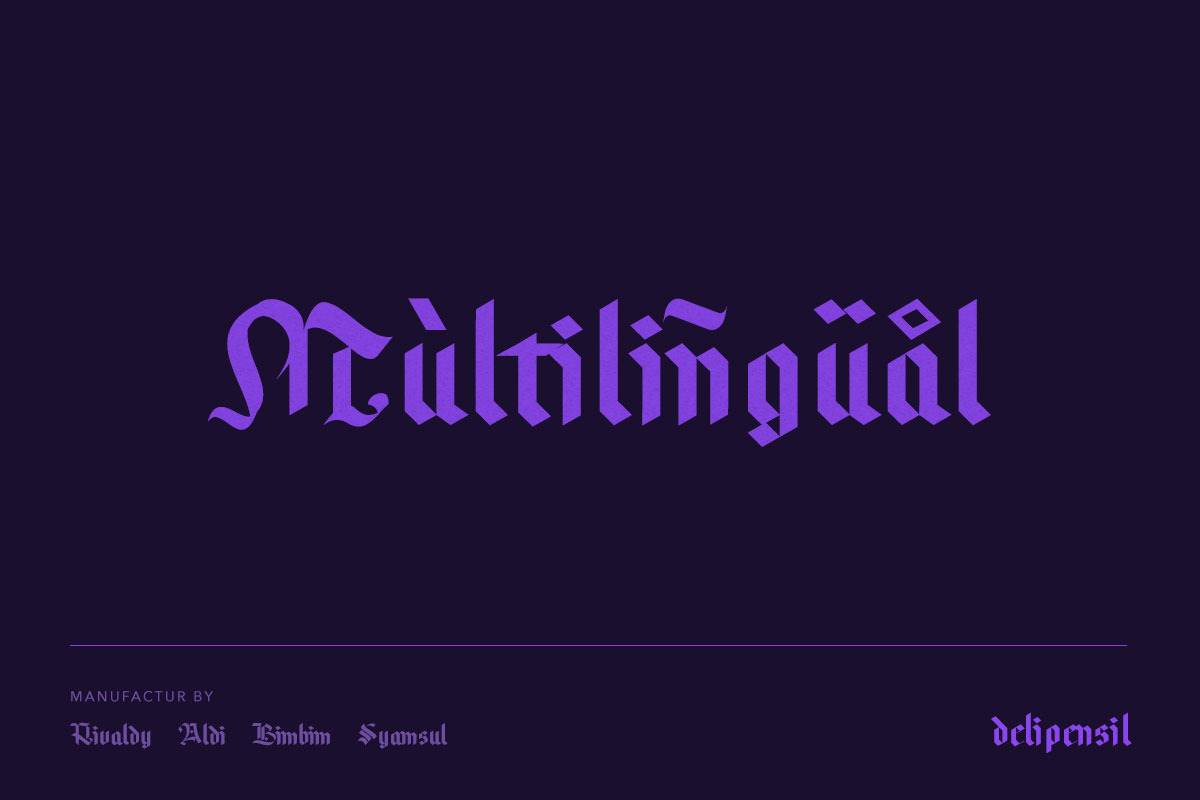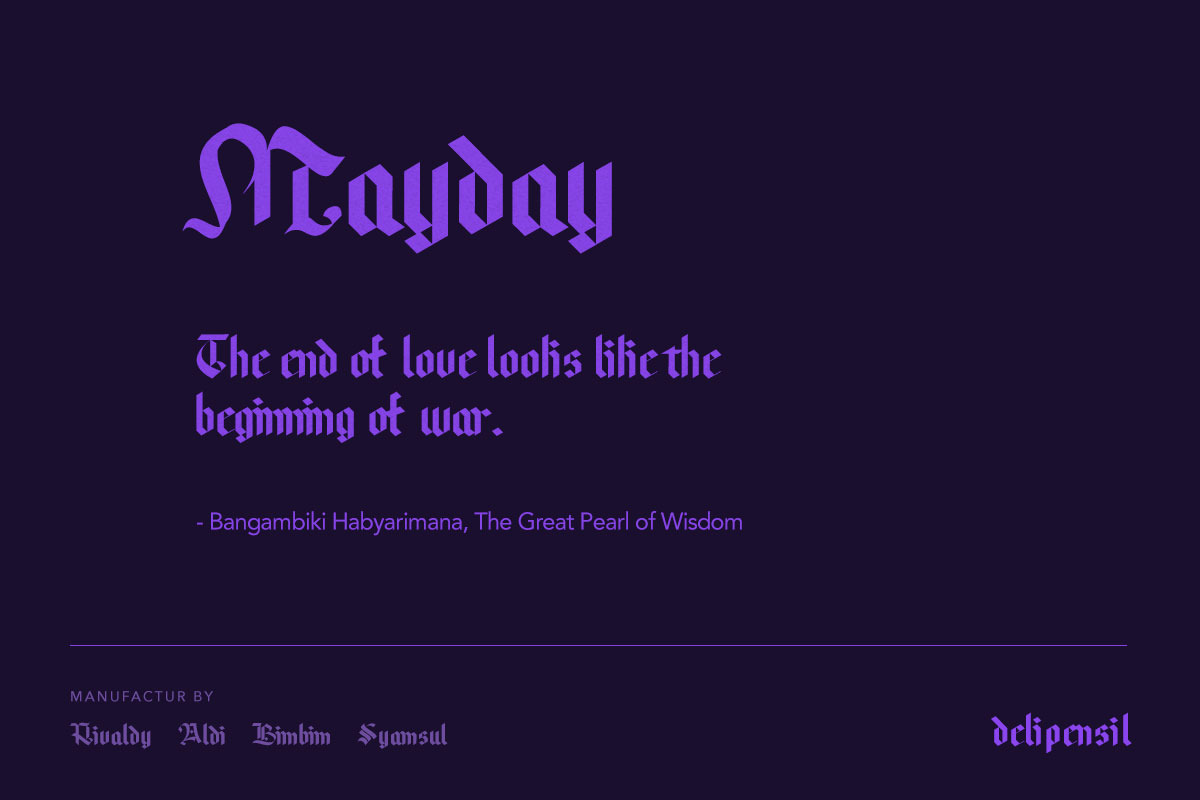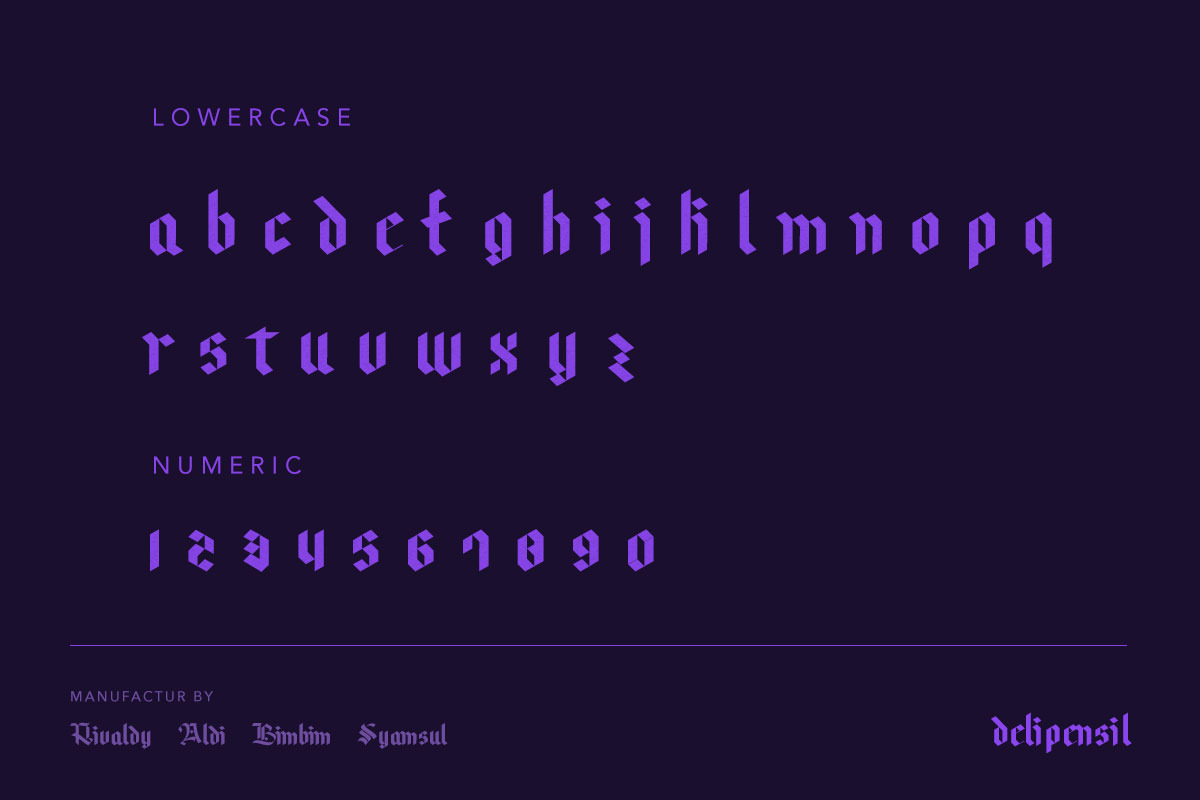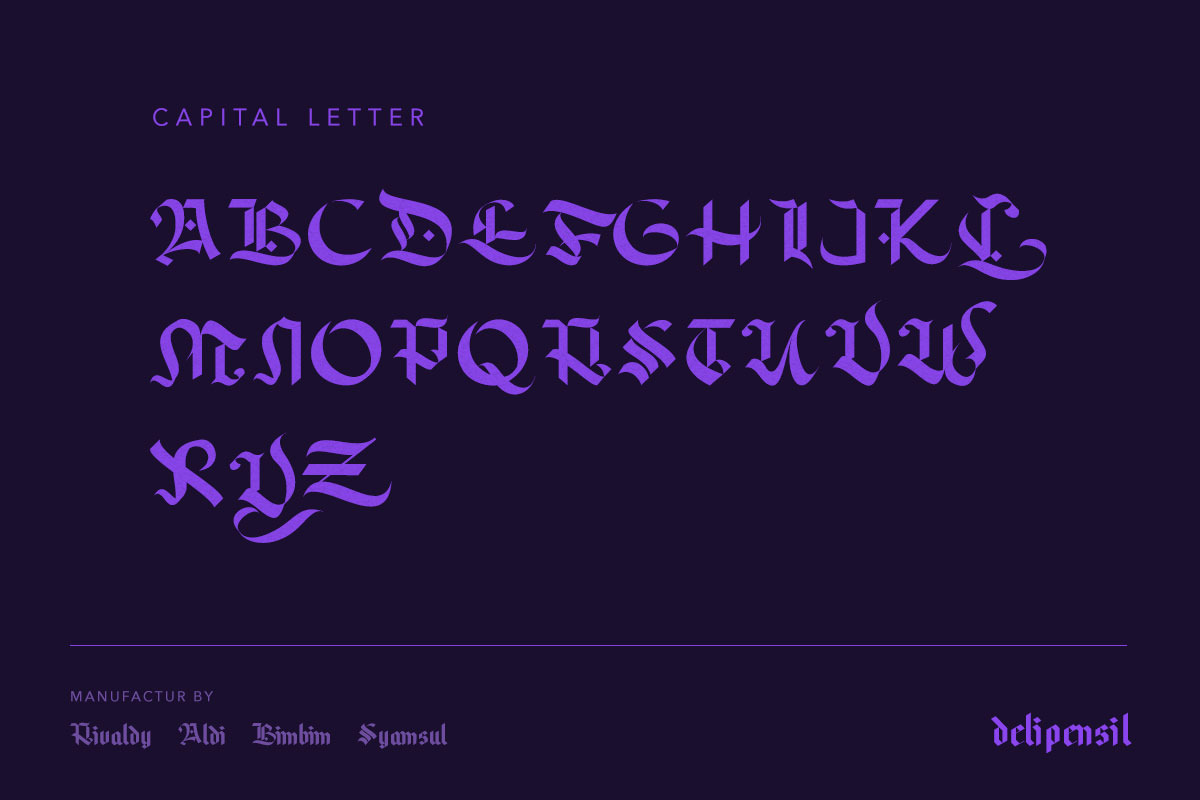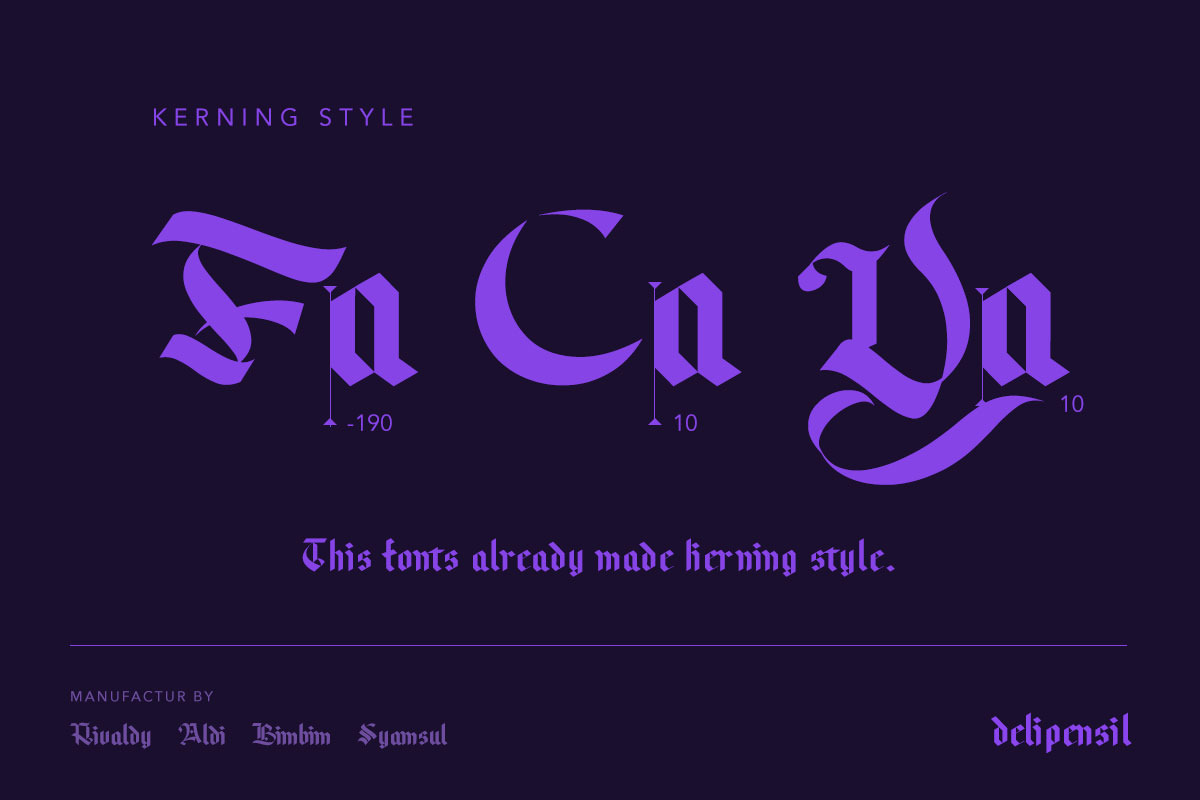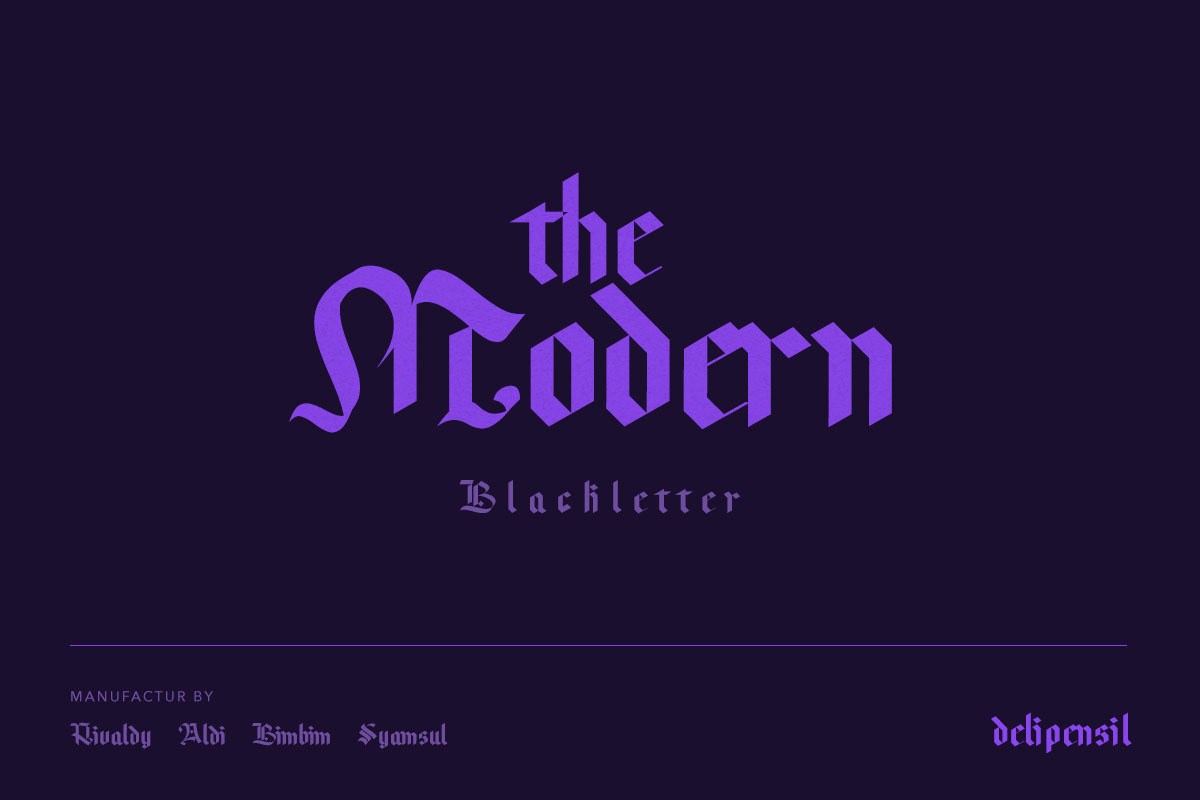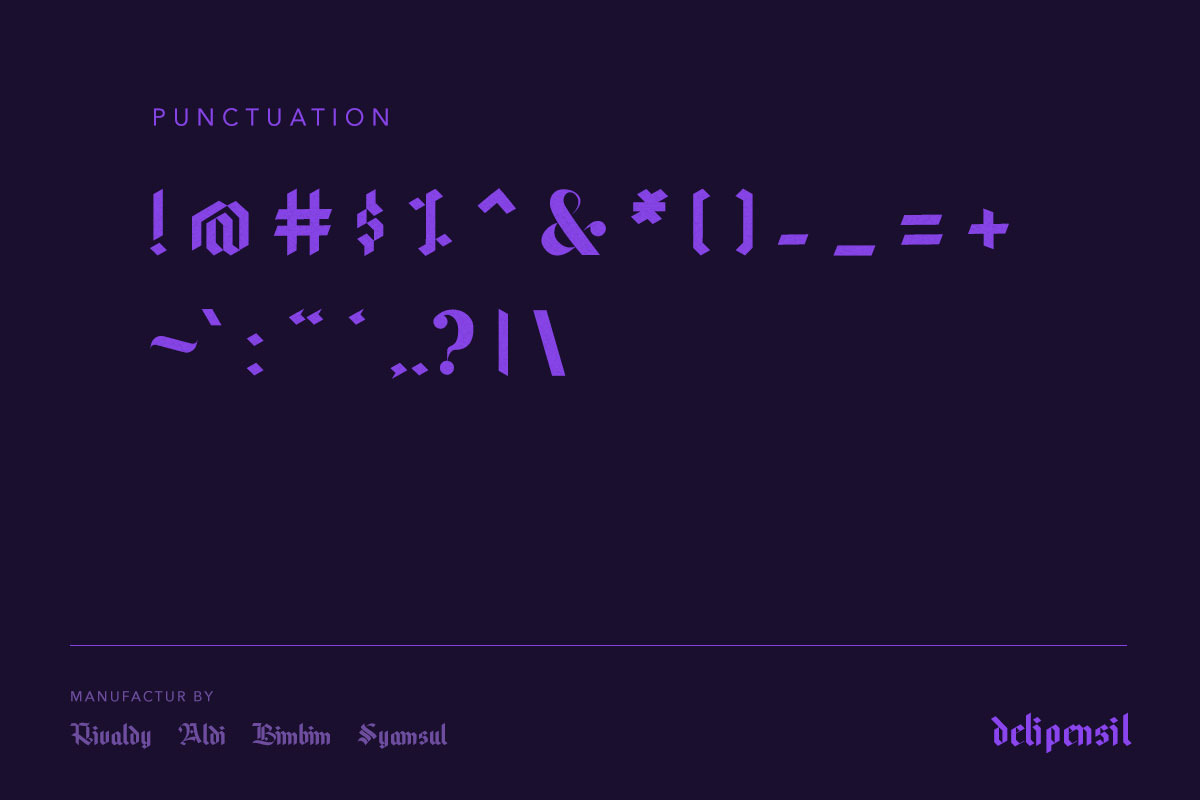
Woliy Medium Font
Hello Everyone, Introducing Woliy Medium Font the stunning cool Blackletter fonts, this font come with really unique character, beauty clean and wonderfull look too, and this font Suitable for Tattoo Lettering, logo letter, Display font, Halloween concept, Poster, clothing design, and many more .
Woliy-Medium Font Style
Woliy-Medium Numeral & Punctuation
Woliy-Medium Kerning Style
Woliy-Medium Language Style
Why Woliy Medium Font is worth a look
Woliy Medium Font by delipensil fits naturally into Branding, posters, packaging, typography.